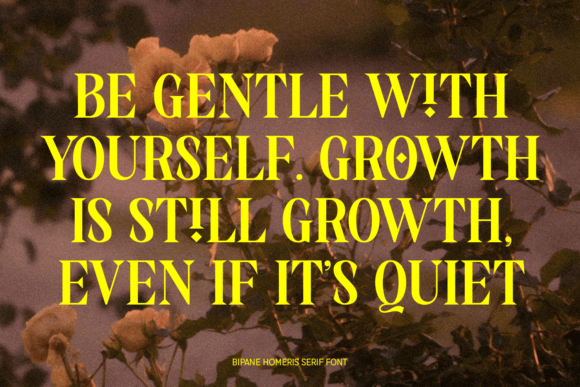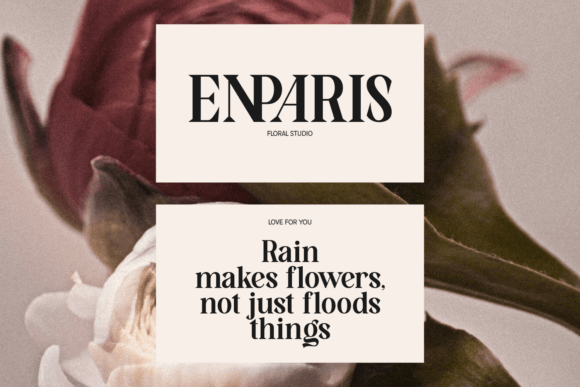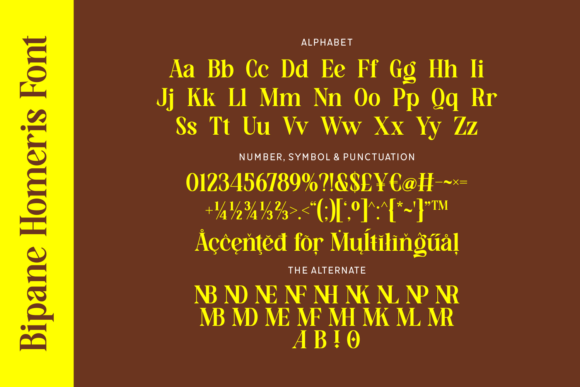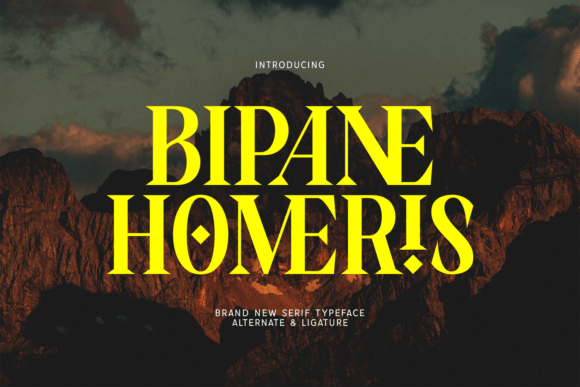
Introducing Bipane Homeris: A Bold and Adventurous Serif Typeface
In the world of typography, a new star has emerged. Meet Bipane Homeris, a brand new serif typeface that is sure to capture the hearts of designers and crafters alike. This exciting new font is designed to make a statement, with a bold and adventurous character that is perfect for a wide range of creative projects.
The Design of Bipane Homeris
Bipane Homeris is a carefully crafted serif typeface that exudes confidence and sophistication. The font’s design emphasizes its bold and adventurous character, making it perfect for headlines, titles, and other display text. The serif details are meticulously designed to provide a sense of elegance and refinement, while the bold lines and curves give the font a sense of strength and resilience.
Key Features of Bipane Homeris
One of the standout features of Bipane Homeris is its versatility. The font includes a range of alternate and ligature options, making it perfect for use in a variety of creative projects. Whether you’re designing a logo, creating a poster, or crafting a website, Bipane Homeris has the flexibility to adapt to your needs.
Alternate Characters
Bipane Homeris includes a range of alternate characters that allow you to add some extra flair to your designs. These alternate characters include stylized letters, swashes, and other decorative elements that can be used to create unique and eye-catching text.
Ligature Options
In addition to alternate characters, Bipane Homeris also includes a range of ligature options. Ligatures are special characters that combine two or more letters into a single glyph, creating a more fluid and natural look. The ligature options in Bipane Homeris make it perfect for use in body text, as well as display text.
Why Choose Bipane Homeris?
So why choose Bipane Homeris for your next design project? Here are just a few reasons:
• Unique and eye-catching design: Bipane Homeris has a bold and adventurous character that is sure to grab attention.
• Versatile: With alternate and ligature options, Bipane Homeris can be used in a wide range of creative projects.
• Elegant and refined: The serif details in Bipane Homeris add a touch of sophistication and elegance to any design.
• Easy to read: Despite its bold character, Bipane Homeris is easy to read, making it perfect for use in body text as well as display text.
Using Bipane Homeris in Your Designs
Bipane Homeris is a versatile font that can be used in a wide range of creative projects. Here are a few ideas to get you started:
• Headlines and titles: Use Bipane Homeris to create bold and eye-catching headlines and titles.
• Logos and branding: The unique character of Bipane Homeris makes it perfect for use in logos and branding materials.
• Posters and flyers: Bipane Homeris is a great choice for posters and flyers, where its bold character can really make an impact.
• Websites and digital design: Bipane Homeris can be used in digital design, including websites, social media graphics, and more.
Bipane Homeris is an exciting new serif typeface that is sure to capture the hearts of designers and crafters alike. With its bold and adventurous character, versatile design, and elegant serif details, Bipane Homeris is the perfect choice for a wide range of creative projects. Whether you’re designing a logo, creating a poster, or crafting a website, Bipane Homeris is a font that is sure to make a statement.